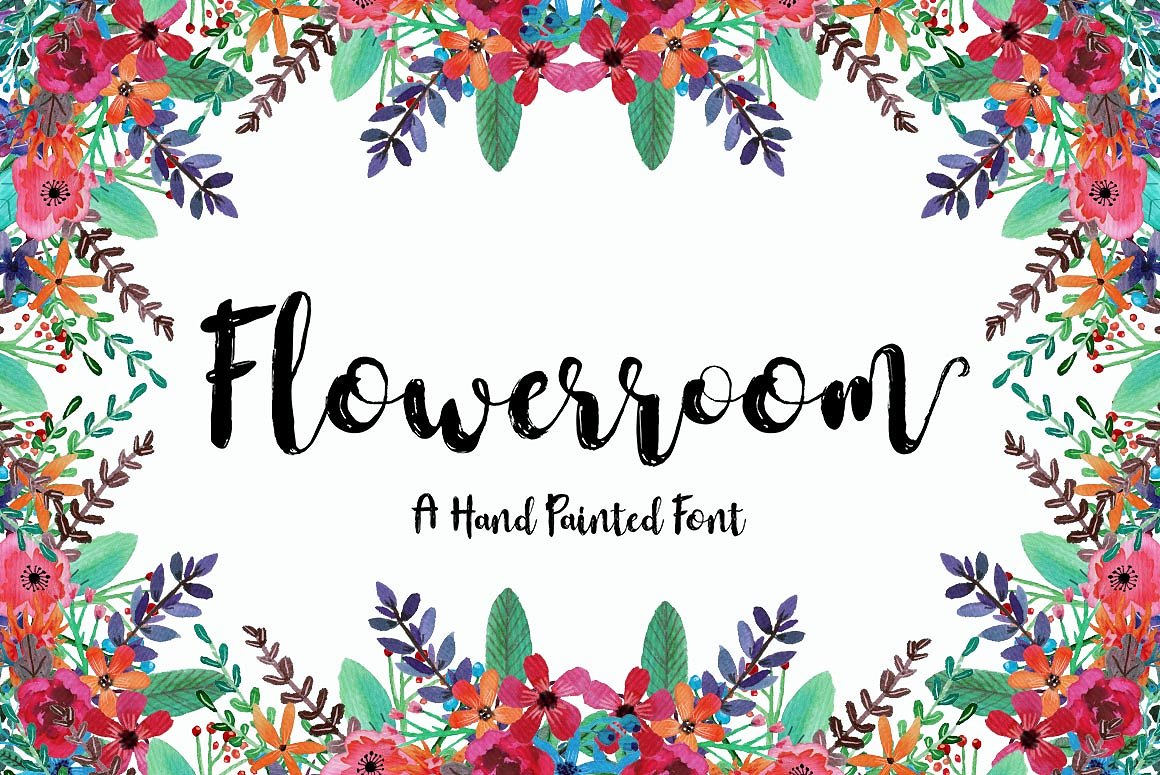
Flowerroom Script Font
Flowerroom Script is a new hand painted font , elegant, organic fun with dancing baseline. Different alternates and swashes to the beginning and ends of all lowercase.